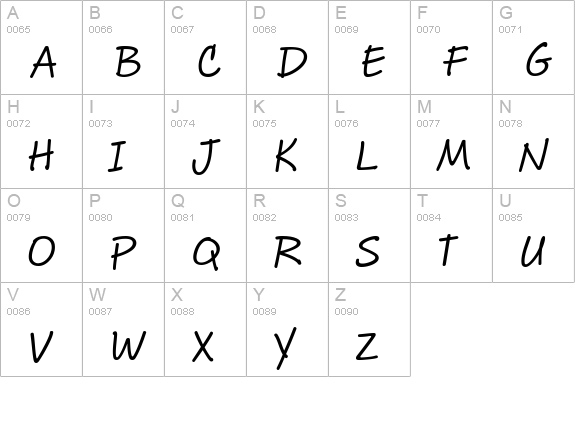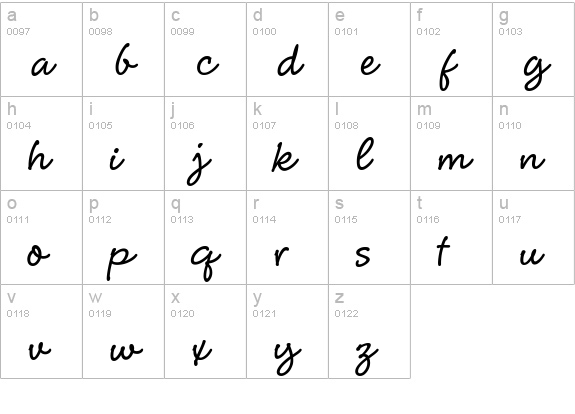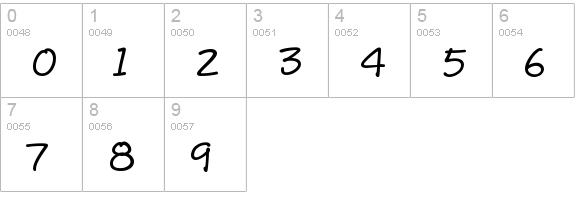
CluffHmkBold Font Details
CluffHmkBold is a striking and versatile font that exudes a sense of boldness and confidence. Its strong, thick strokes make it perfect for headlines, titles, and other attention-grabbing text. The font's unique design gives off a modern and edgy vibe, making it ideal for projects that require a touch of sophistication and flair. What's even better is that CluffHmkBold is completely free for personal and commercial use. You can easily download this eye-catching font at FontsMarket.com and start using it in your designs right away. With CluffHmkBold, you can add a touch of boldness and style to your projects without breaking the bank. Don't miss out on this fantastic opportunity to enhance your designs with this amazing font!